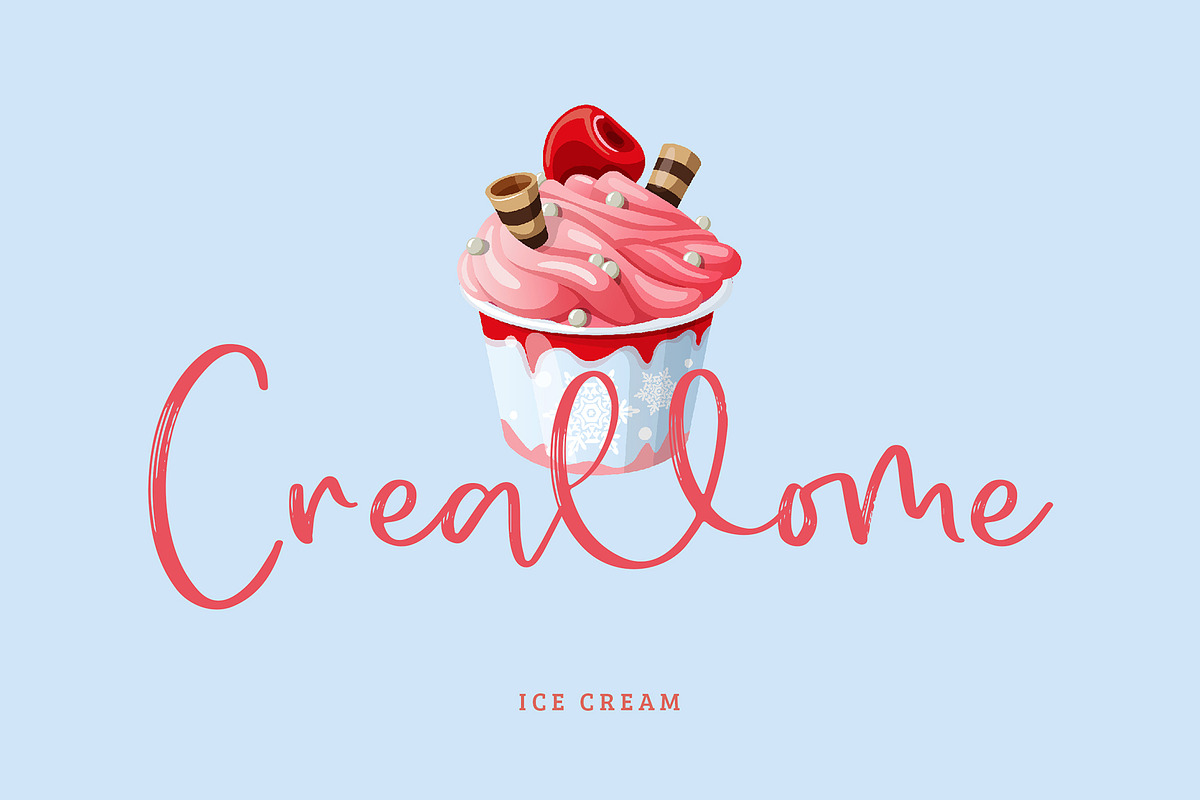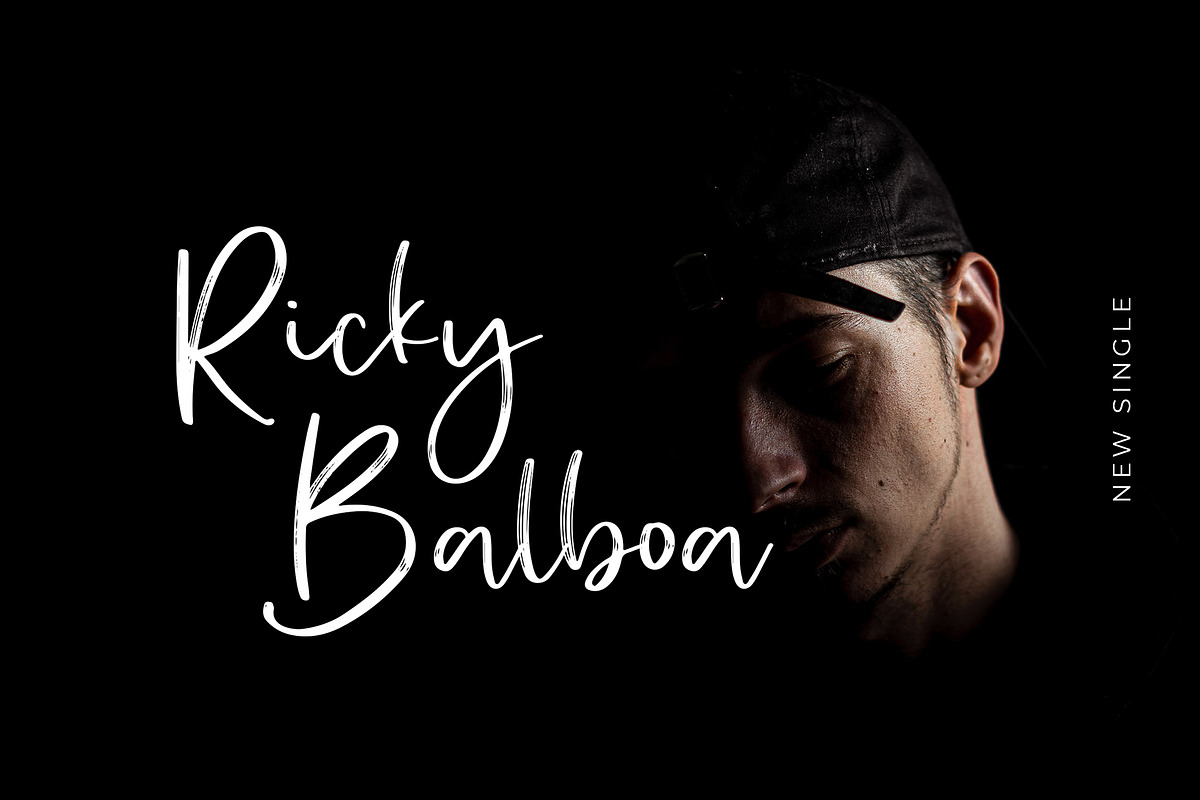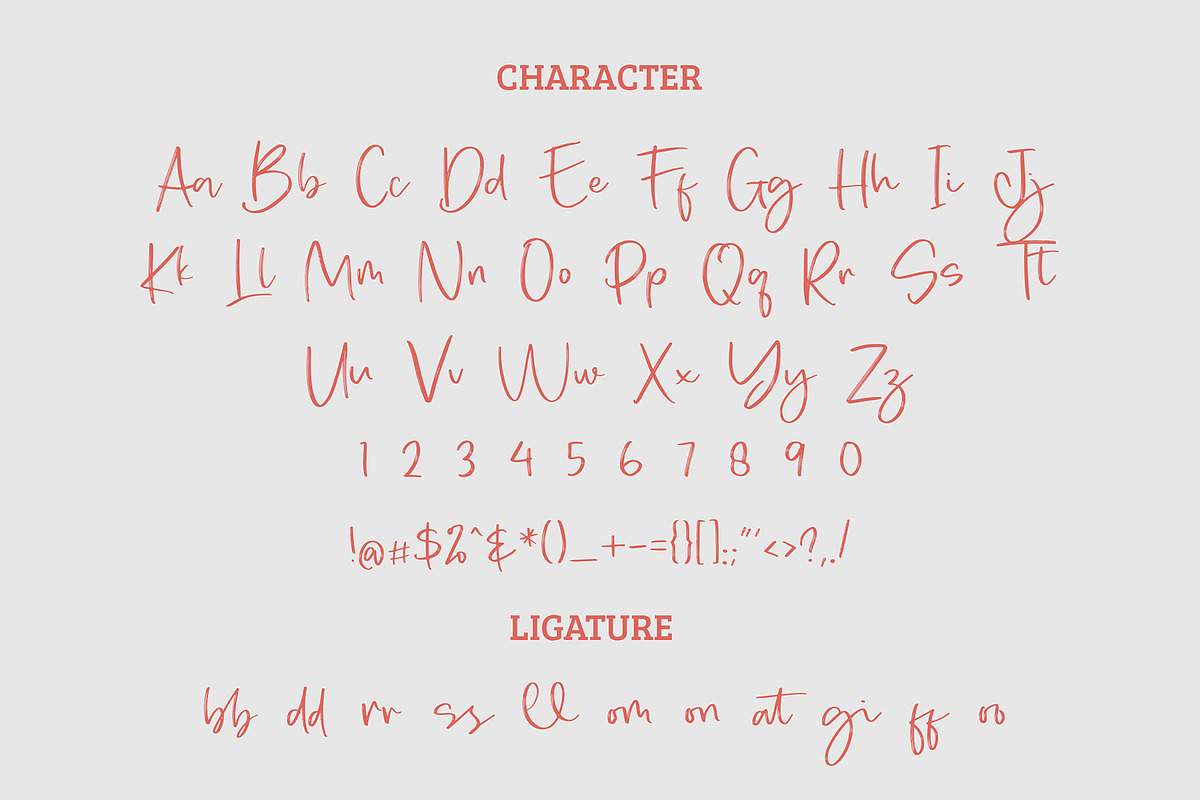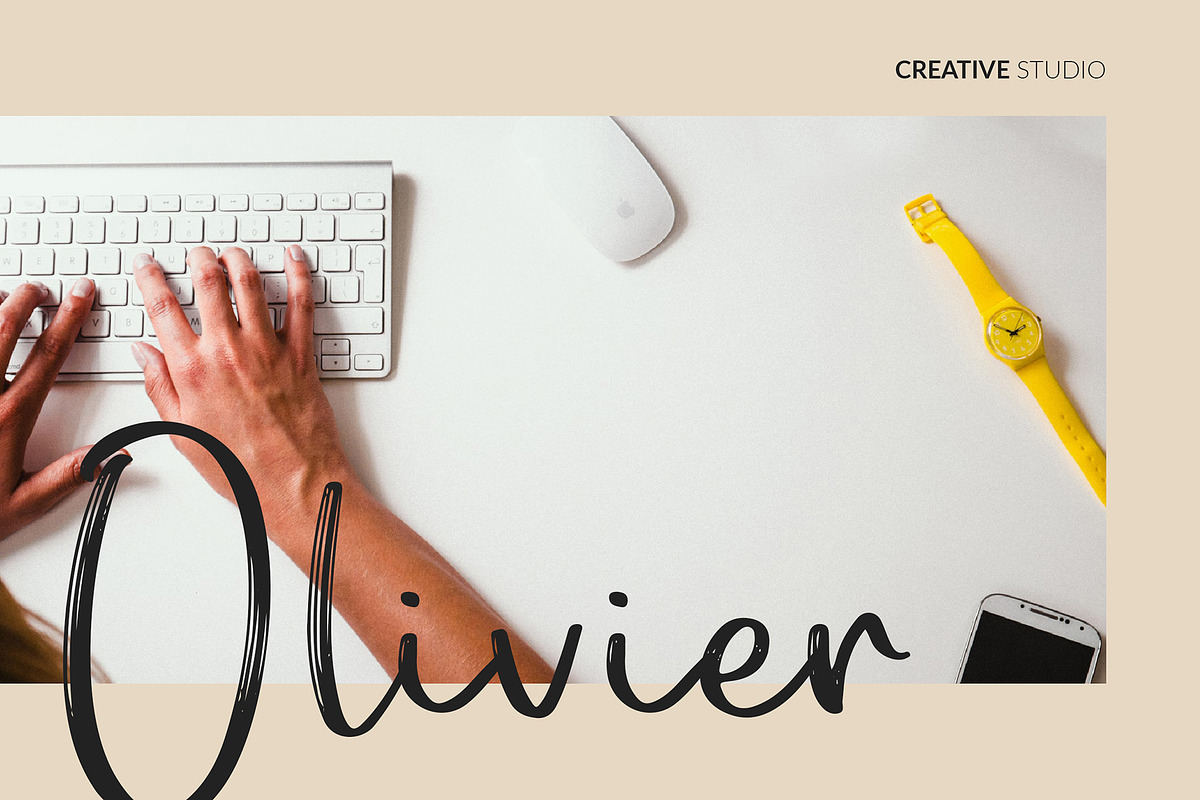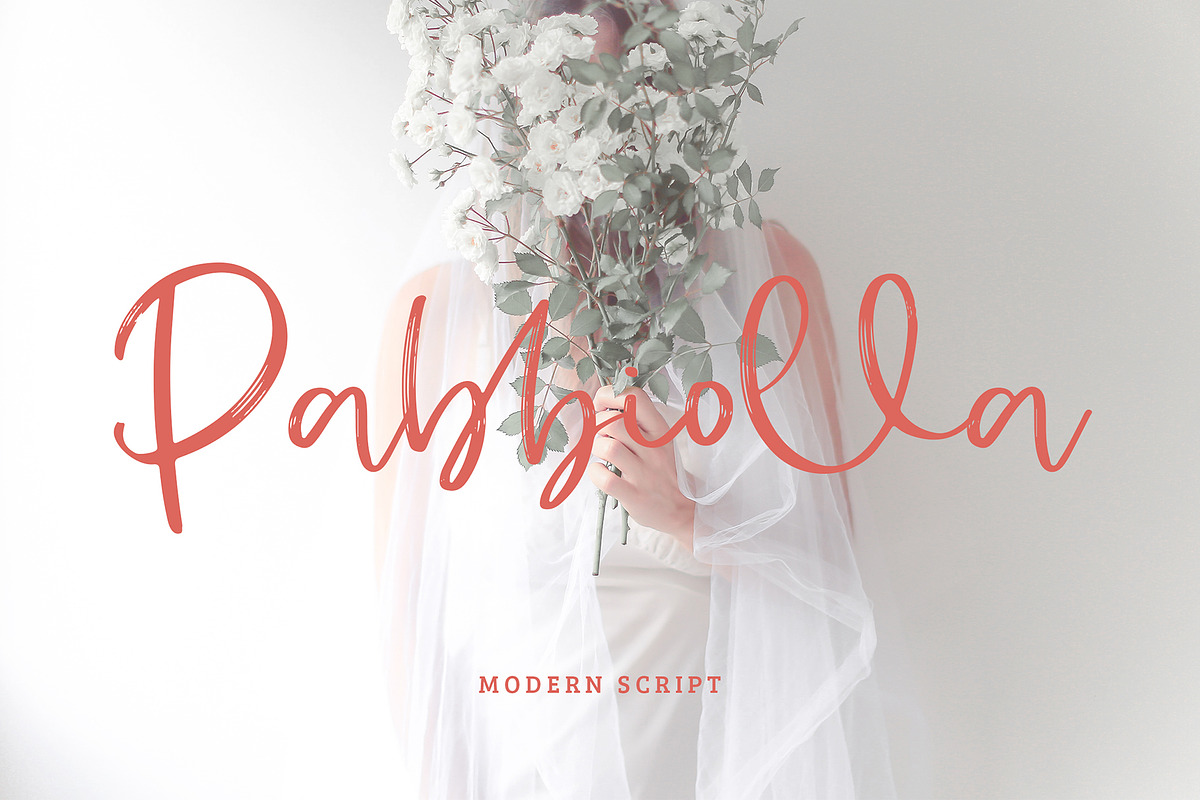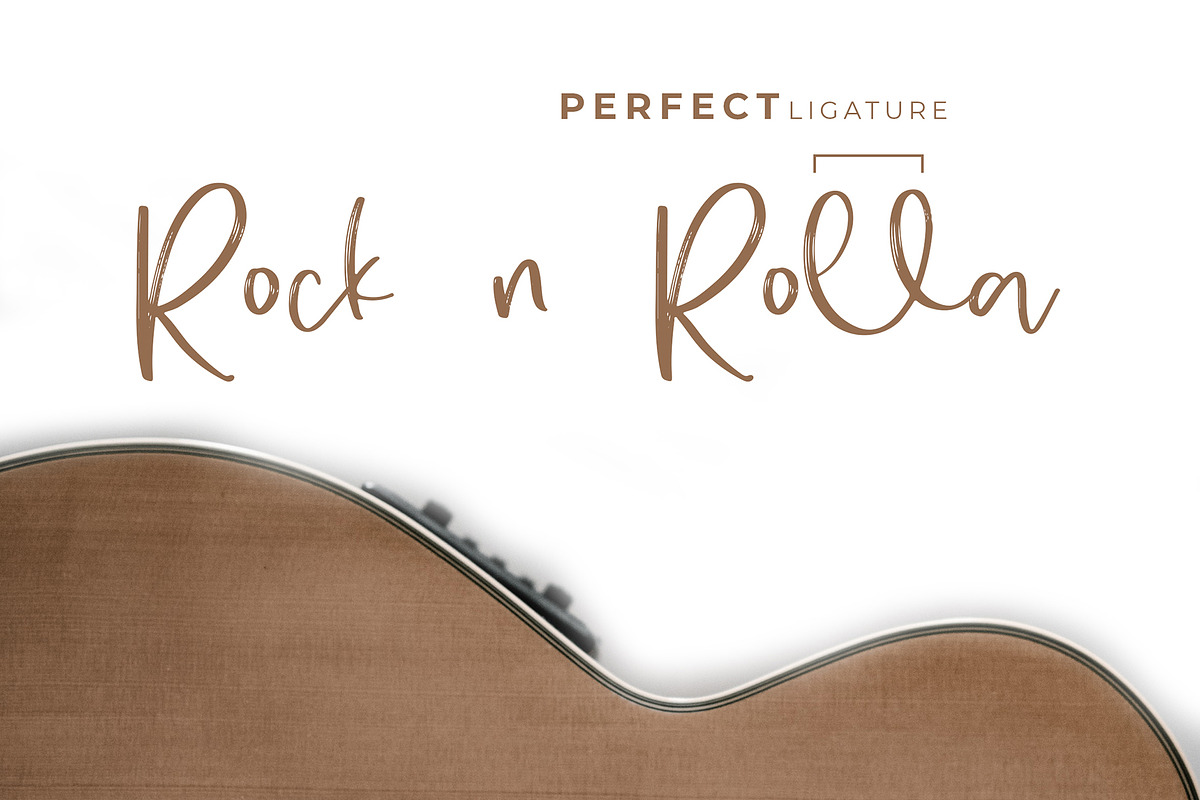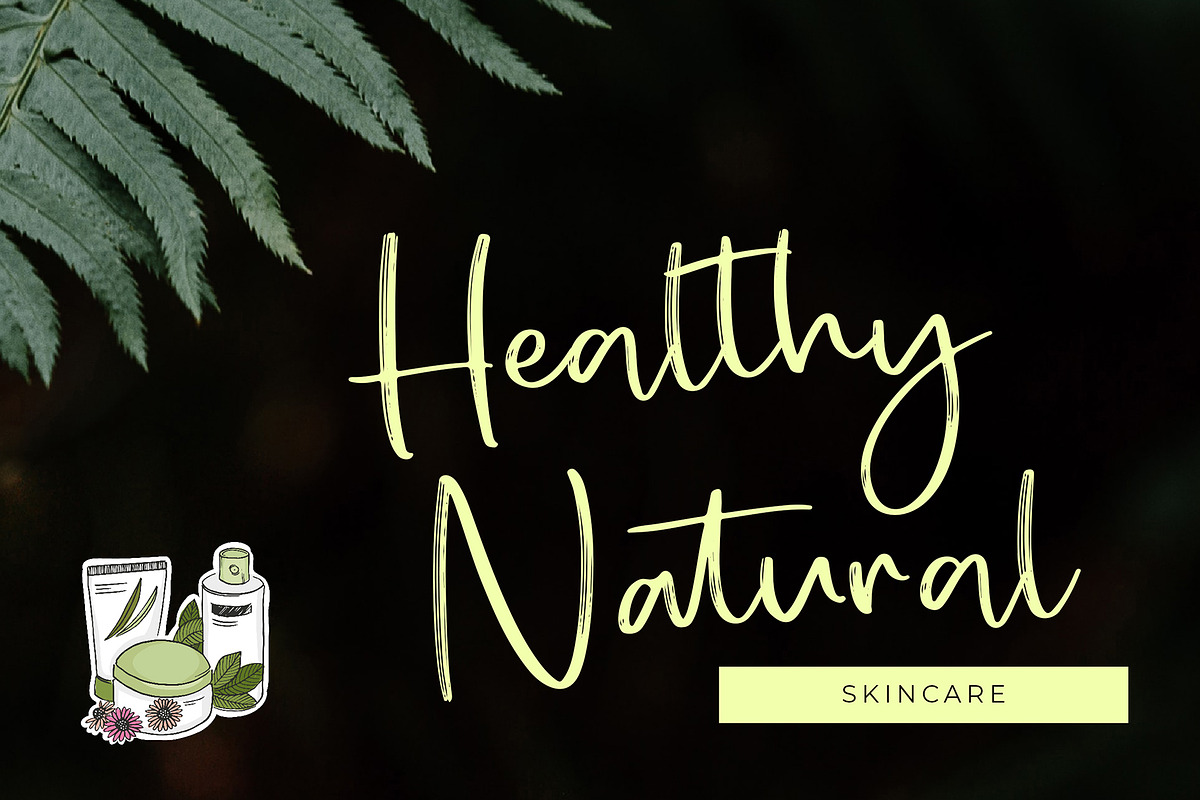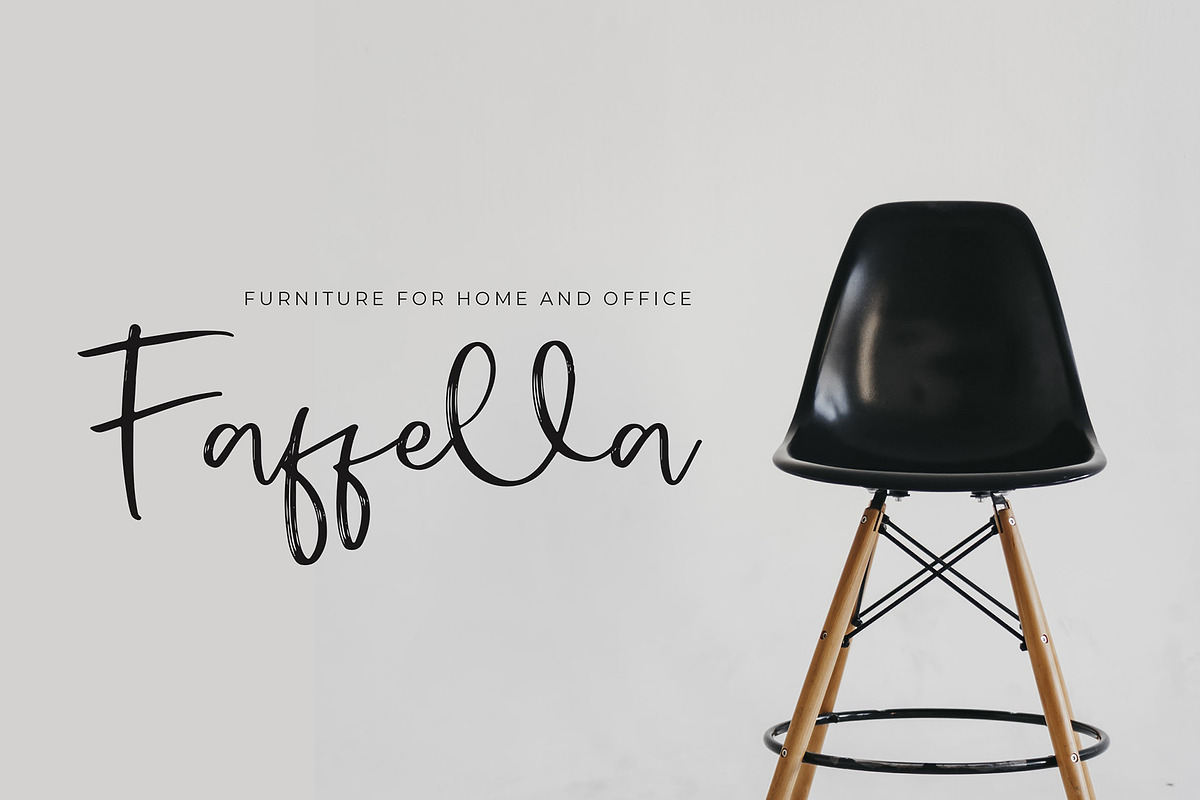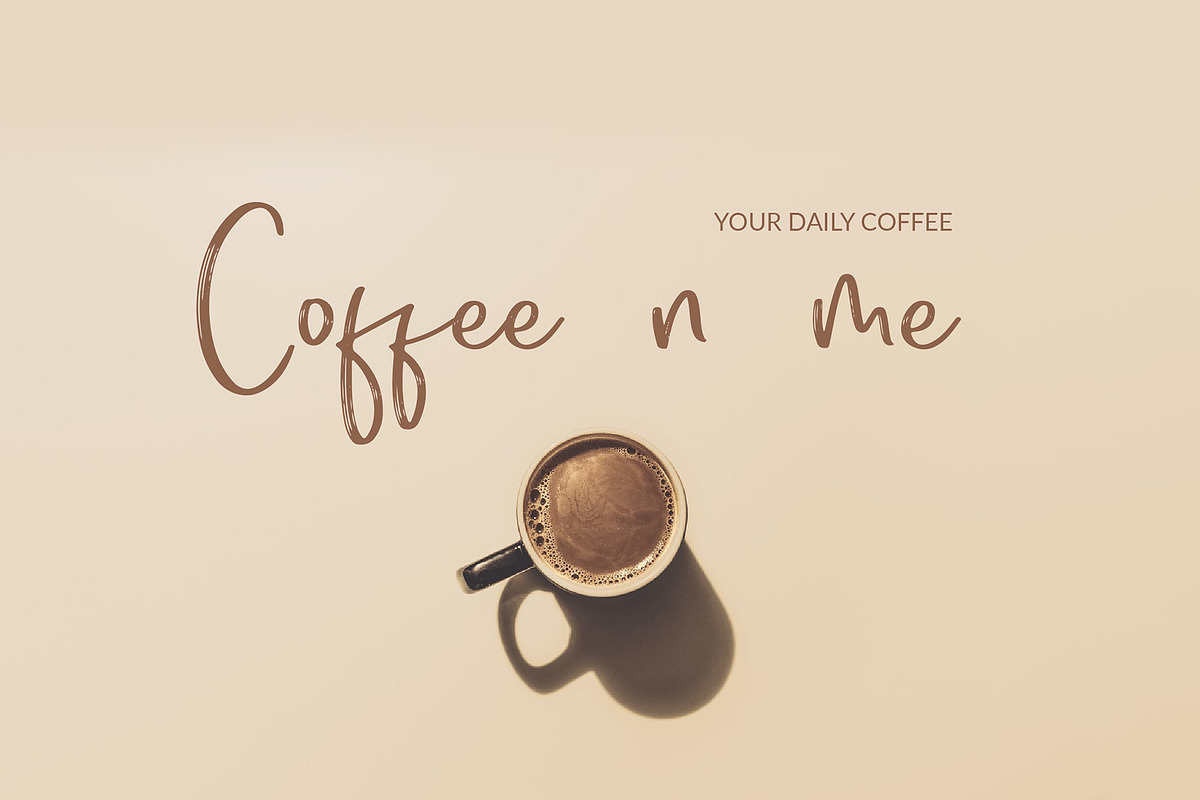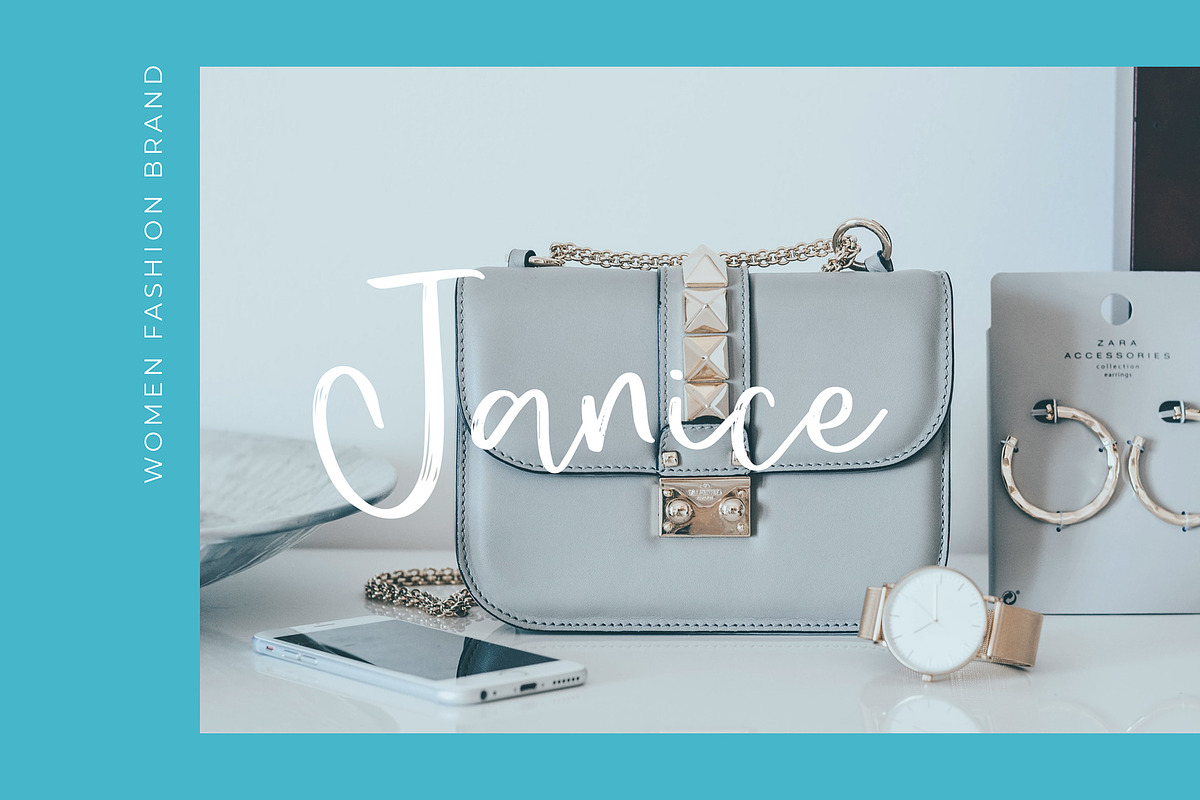
Pabbiolla Modern Script Font
Pabbiolla Modern Script Font is a Modern Script font that can make your text appear elegant, luxurious, and modern!
Pabbiolla is perfect for branding projects, logo, wedding designs, social media posts, advertisements, product packaging, T-shirt design, product designs, label, photography, watermark, invitation, stationery, and any projects.